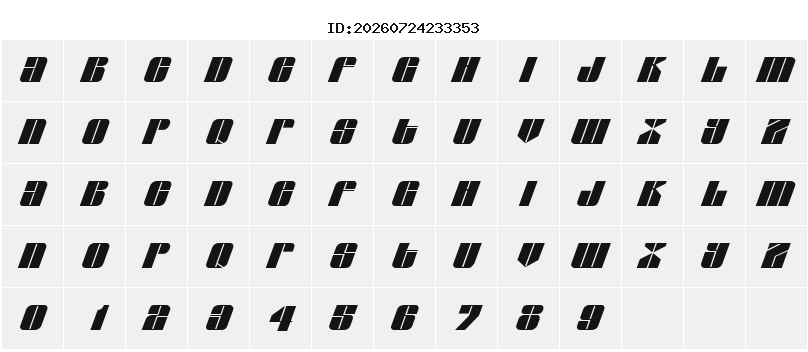
• Font Name: Greyhound SF
• Full Font Name: Greyhound SF
Greyhound SF.ttf is a modern, elegant sans-serif font designed for ultimate readability and visual harmony. Perfect for branding, headlines, web design, and print materials.